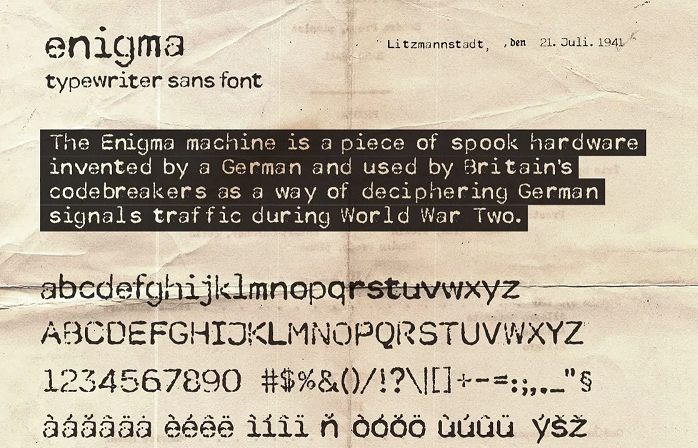
14 Best Monospaced Fonts & Typefaces For Designers (2025)
The web is packed full of copy-paste website designs using the same boring old proportional fonts, which makes monospaced fonts the perfect choice for web designers that want to make their site stand out from the crowd.
These old-school, fixed-width fonts are retro, minimalist, and super stylish. In this article, we’re going to telling you all about them and revealing what we think are the 14 best monospaced fonts for designers.
We’ll also be sharing some examples of websites using monospaced fonts that you can look at for inspiration. Let’s get started.
What is a Monospaced Font?
Monospaced fonts are old-school typefaces that were originally made to comply with the technical requirements of typewriters.
They’re ‘fixed-pitch’ fonts, which means each character within a monospaced font is exactly the same width as every other character. This is the opposite of ‘proportional’ fonts, in which the characters all have variable widths
Here’s an example to illustrate the difference.
As you can see, the monospaced font characters are all contained within the equally-spaced grids, whereas the proportional font characters overlap.
Monospaced fonts were very popular in the early days of computers and typewriters as they fitted in with the mechanical and graphical requirements of the day, but they’ve now fallen out of favor. Today, proportional fonts also make up the vast majority of fonts used across the web as they’re considered more ‘readable’ and beautiful.
Why Use a Monospaced Font?
Monospaced fonts weren’t designed to win beauty cases. Nonetheless, there are several instances where a monospaced font might make good creative sense. Here’s why:
- They have an ‘undesigned’ look. makes them a great choice for designers working on a minimalist website
- They’re retro and full of character. Monospaced fonts remind people of early CRT screens and of days gone by, which gives them a distinctly nostalgic feel.
- You can use them to recreate typewriter text and lines of code. If you’re trying to create a design that looks like it’s been written out on a typewriter, or if you’re working on a coding-related website, monospaced fonts are a perfect choice.
Programmers also tend to use monospaced fonts as their equal-width spacing aids with code legibility.
3 Examples of Sites Using Monospaced Fonts
Before we get into the list, here are some awesome examples of websites already using monospaced fonts that you can look at for inspiration.
1. Nique Radio
This well-branded website for Nique Radio (read: ‘f- the radio’) has used a monospaced typeface family to great effect.
You can see what the designer had in mind here: they wanted to create something impactful and playful for the new-age ‘podcast brat’ website. Radio is an old school platform, so it makes sense they’d use an old-school font to evoke that retro feel with a modern twist.
2. Baugeld Spezialisten
This is the website of Baugeld Spezialisten a European property financing corporation that uses the font Akkurat Mono. The font works well with the business’s minimalist website design. The monospaced font helps to give the site an ultra-modern yet professional look.
3. Pro Battlestation
Pro Battlestation is a blog all about gaming setups. The designer of Pro Battlestations has used the space mono font again here for body text on the home page and in the menu bar, this time alongside a bold logo font to create another brutalist effect.
Best Monospaced Fonts
Alright, let’s jump into the list. Here are what we think are the best monospaced fonts from Envato Elements (our review).
1. Alma Mono
First up, we have the friendly-looking monospace font Alma Mono.
This is a rounded monospaced typeface that is more fun than sophisticated and positively oozing personality. It’s one of the best monospaced fonts available right now and comes in 5 different weights and would work well as a heavy display type.
2. Odudo Mono
Next, we have another rounded monospaced font, Odudo Mono. Odudo Mono is the monospaced version of the uber-popular original Odudo typeface.
It’s another clean but quirky and fun font that’d look great on any website that you want to inject a little personality into. It pops off the page and would work well for both headers and body text if paired with a nice serif font. It’s available in several different weights from bold to light.
3. Walter
Moving into Walter. This monospaced font uses clean, straight lines, sharp edges, and minimalist characters to create a distinctive look. It’s a bold, masculine, modern font typeface that works well for fashion, sci-fi, and cinematic designs.
Walter is best-suited for use in statement designs. It isn’t super readable, but it is very bold. As such, I’d suggest using it for branding, logos, marketing graphics, and other visual displays, but it probably wouldn’t work as well for body text.
It’s available in 5 weights ranging from thin to heavy.
4. Igoe
Igoe is another clean, modern-looking monospaced font that would work well on logos, website headers, and other designs. It’s powerful, exotic, and stylish all at the same time and I think it’d look especially great on an album cover.
It comes in one weight and includes upper case, lowercase, and ‘stylistic alternate’ characters.
5. Vintama
Vintage. Classic. Artistic. Those are the three words I’d use to describe this monospaced serif typeface by Orca Creative. Vintama has a very interesting and bold aesthetic with characters that look almost ‘worn’ thanks to the speckled design. This would look great on something like a vintage clothing website or salon brochure.
It’s available in two versions: a standard version and a ‘shadowed version’. The characters in the latter have a slight shadow to raise them off the page and give them a more artistic feel.
6. Enigma
Next up, we have Enigma Typewriter. This is a super interesting font that was designed to mimic the look and feel of old documents and papers produced by a typewriter. As we mentioned earlier, monospaced fonts are perfect for this as the mechanics of a typewriter required fonts to be monospaced.
True to the name, it’s both mysterious looking and reminiscent of darker days in the early 1940s. The font was inspired by the German Enigma machine, a cipher device used to encrypt messages during World War 2.
If you’re trying to create a design with a mysterious, creepy, old, or WW2-esque aesthetic, Enigma TYpewriter might be the perfect font for that.
7. Bergen Mono
Bergen Mono is part of the Bergen font family. The mono version keeps the personality and general look and feel of Bergen Sans but with the added flair of a monospaced typeface. It’s simple, clean, and highly legible and would look great as the body text on any website. It’d also make a great coding font.
8. System Code
As the name suggests, System Code is a monospaced font inspired by tech. It’s a very decorative typeface with interesting character designs. It’s ideal for posters, logos, and headers, and would work great on a tech- or game-related website.
9. Pine Font
Pine Typeface is another one of the best monospaced fonts. It has a natural, vintage look that’s really easy on the eyes. The semibold characters are smooth, simple, and stylish. It’s a very versatile font that can be used in many different ways, but it works especially well for branding, logos, headers, and posters.
10. Bistro Font
Bistro is a hip, modern font that was inspired by the chilled atmosphere of local cafes and is perfect for anyone working on an online coffee store or cafe website/poster/other marketing materials. It’s quirky, quaint, and full of imperfections that bring it to life.
What makes Bistro extra interesting is the option to enhance it with a bi-color interior slant, fill, or line. The typeface set comes with both the character ‘outlines’ and separate fill options (fill, line, and slant). By superimposing the former over the latter, you can mix and match different color schemes to create all sorts of interesting designs.
The font package includes two styles (sans and serif), three weights, and both the outlines and the three fill options. Plus, it also includes 50 hand-drawn, cafe-themed vector images that you can use alongside the text in your designs.
11. Looper
Looper is another modern decorative monospaced font that has a very futuristic feel. It uses a geometric design with characters based around basic shapes, which gives them a very structured character.
12. Nicolatte
Nicolatte is a gorgeous, versatile monospaced sans font that can be used for everything from logos and branding to posters and website headers. It has a futuristic feel and would work best on futuristic or fashion-related design projects.
13. Laser
Laser is another clean san serif monospaced font that uses straight lines and simplified characters, similar to Walter. It’s modern, elegant, and perfect for posters, banners, and name cards. There’s three versions of Laser you can use: regular, outliner, and ‘stamp’ style. Each has a very distinctive look and feel.
14. Arkibal Mono
Arkibal mono is a classic monospaced font with a more traditional look. The designer took inspiration from old documents and store signs that belonged to his great-grandfather and date back to 1838. He used the same retro-looking characters but added a modern twist – and it looks great.
Arkibal mono comes in 6 weights: thin, light, medium, regular, bold, and heavy.
Final Thoughts